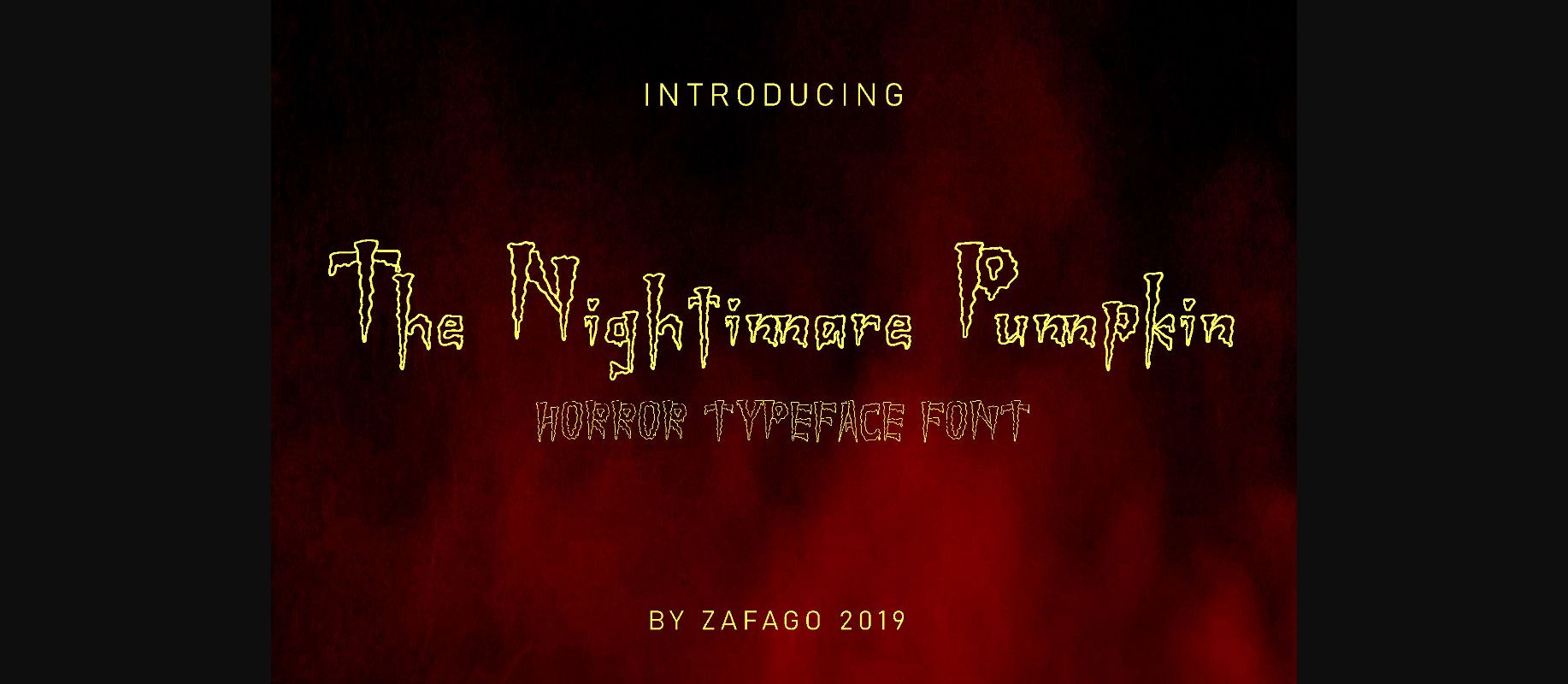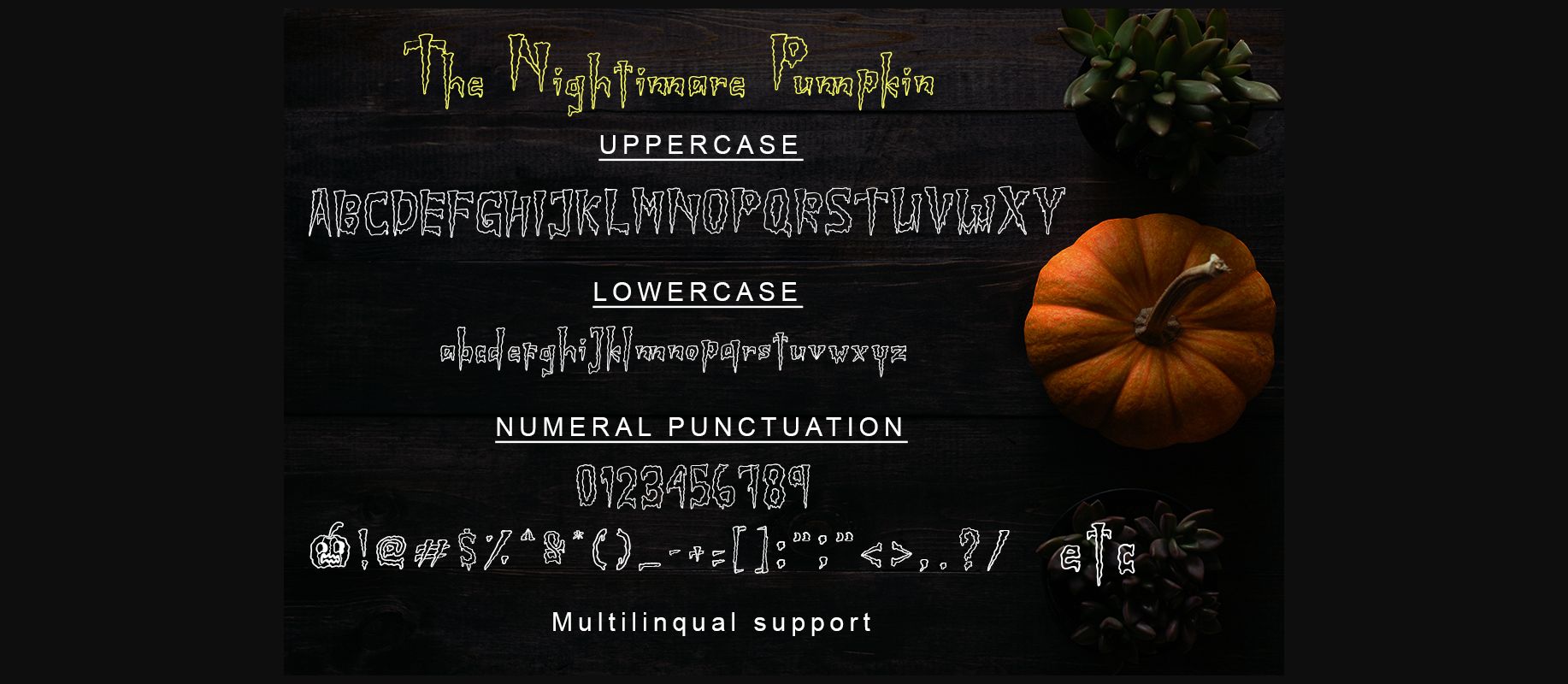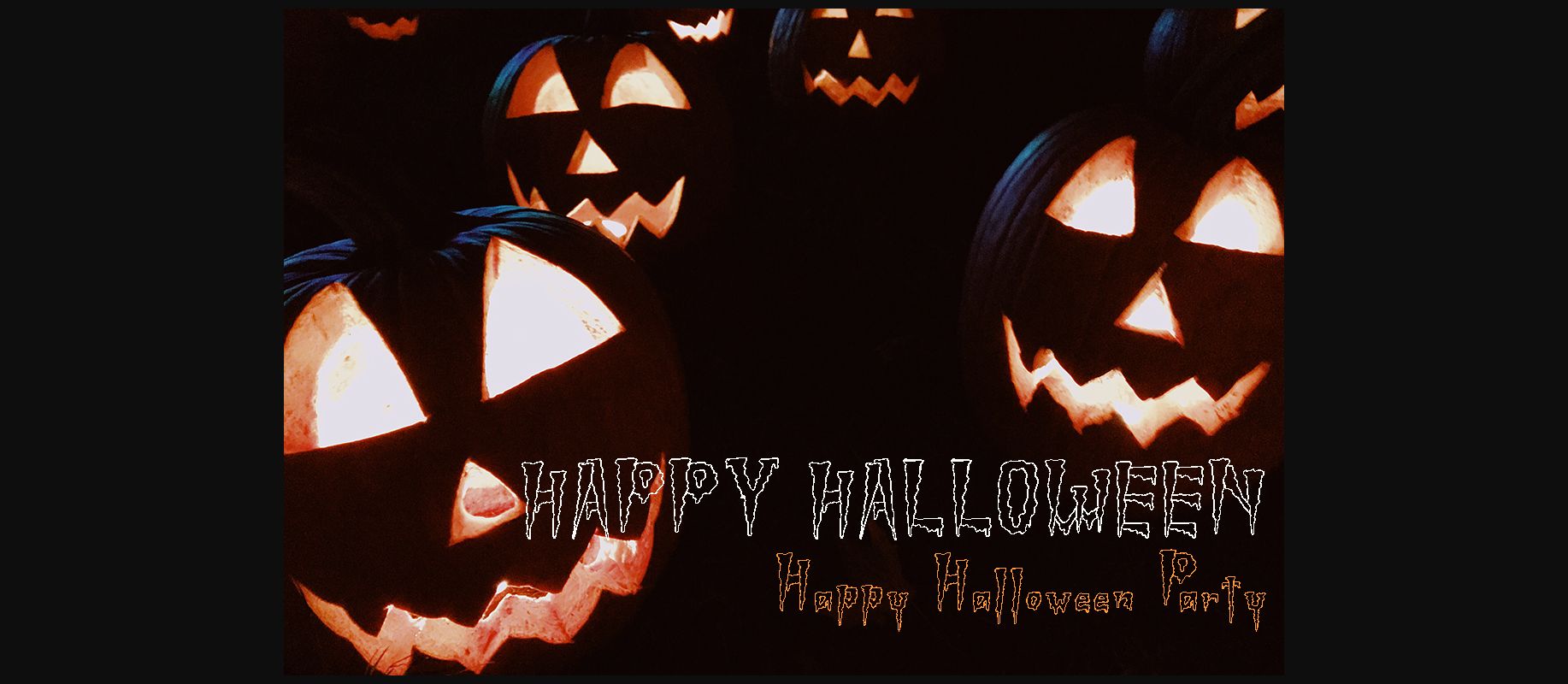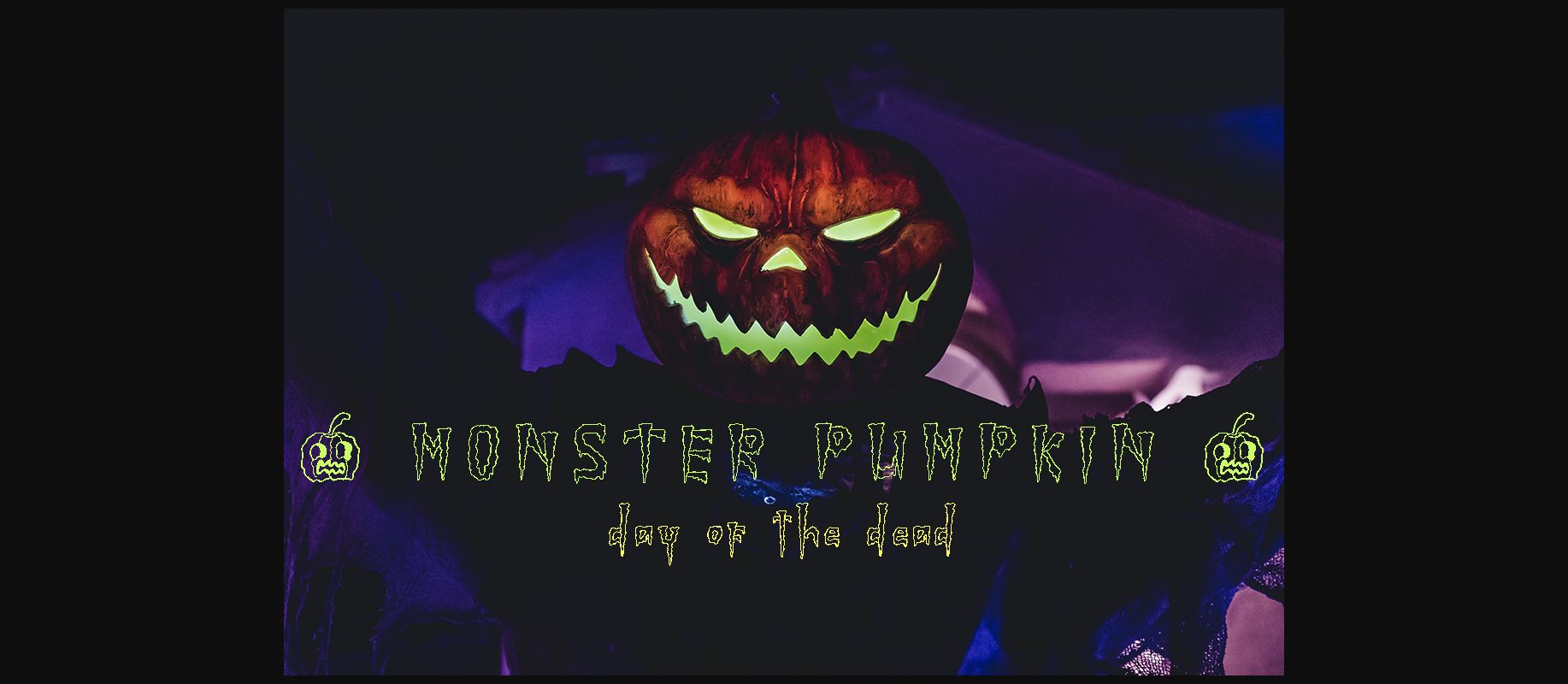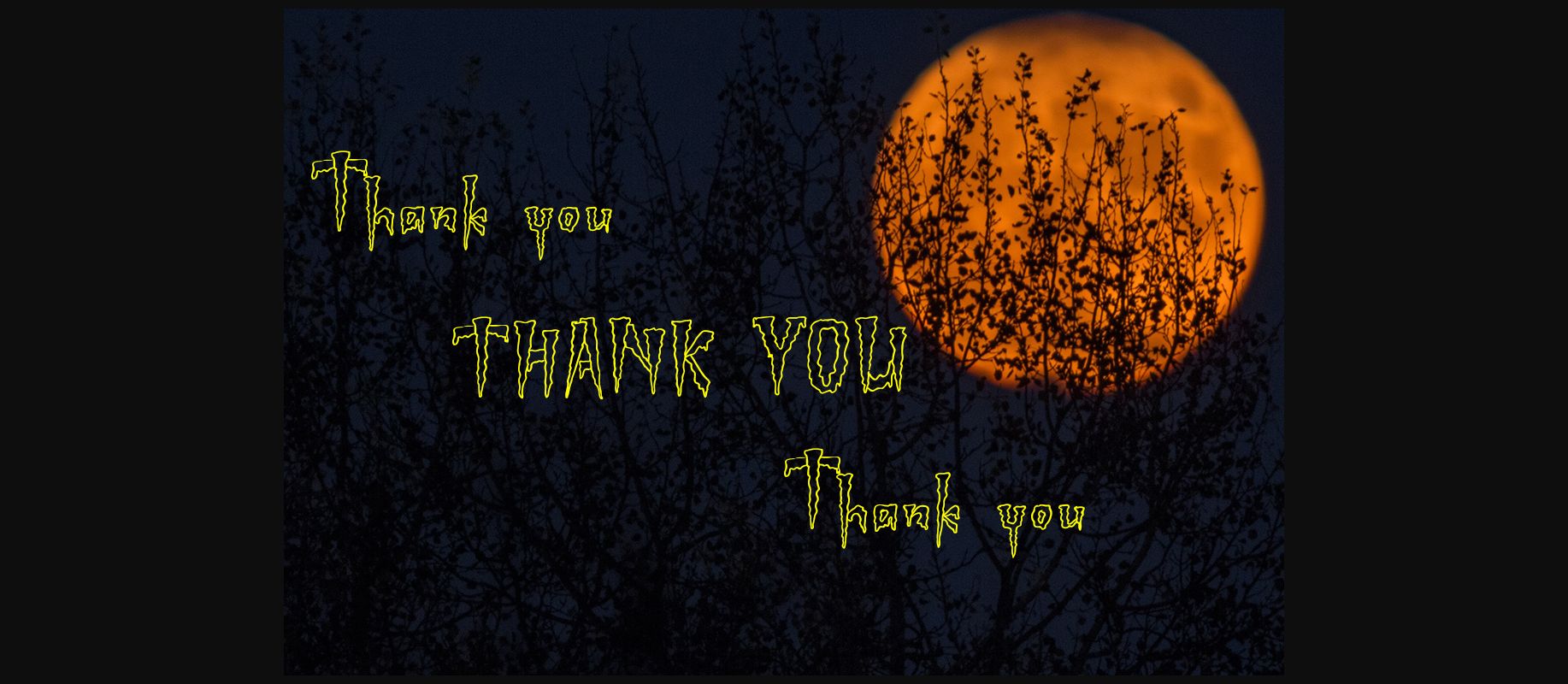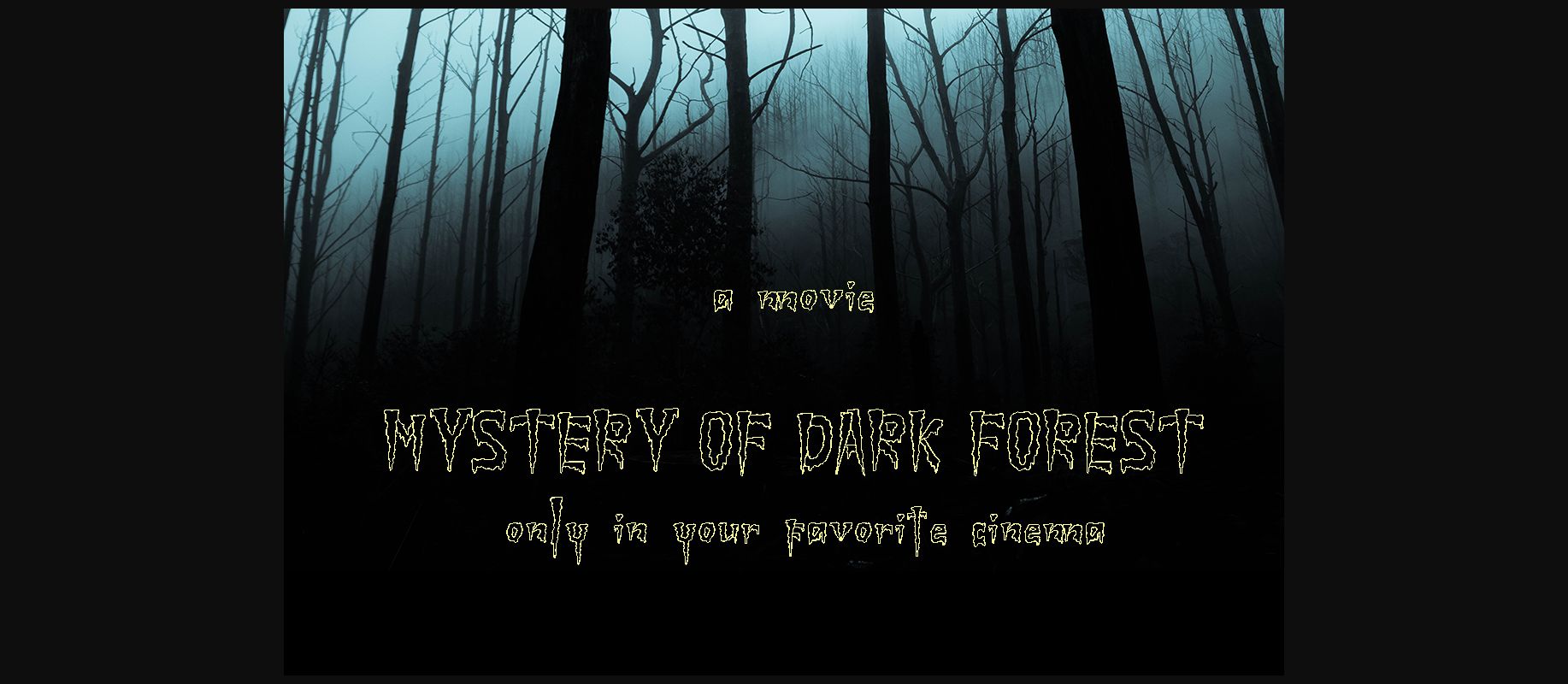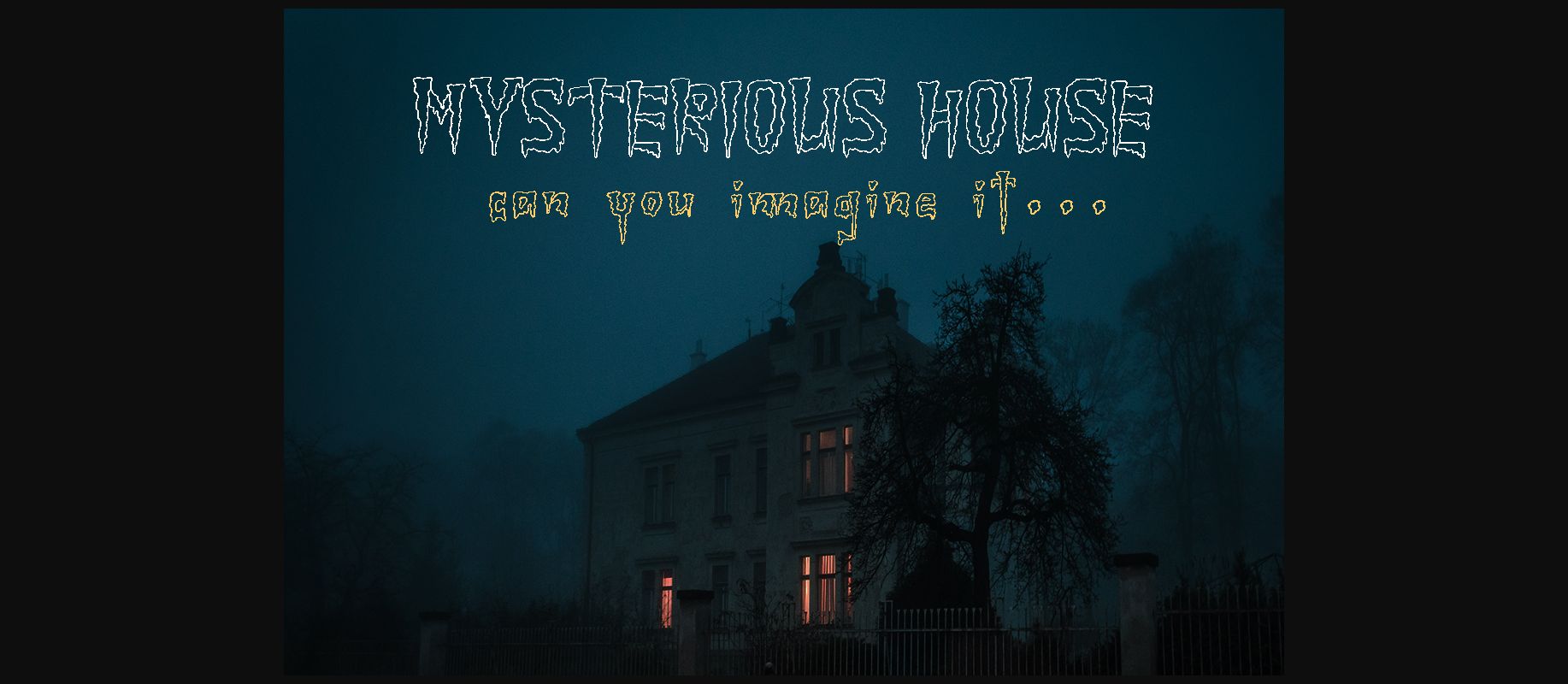
Nightimare Pumpkin Font
About Nightimare Pumpkin Font
Inspired by all things Halloween, Nightimare Pumpkin is a truly scary and rough decorative font that’s perfect for any Horror-themed design!